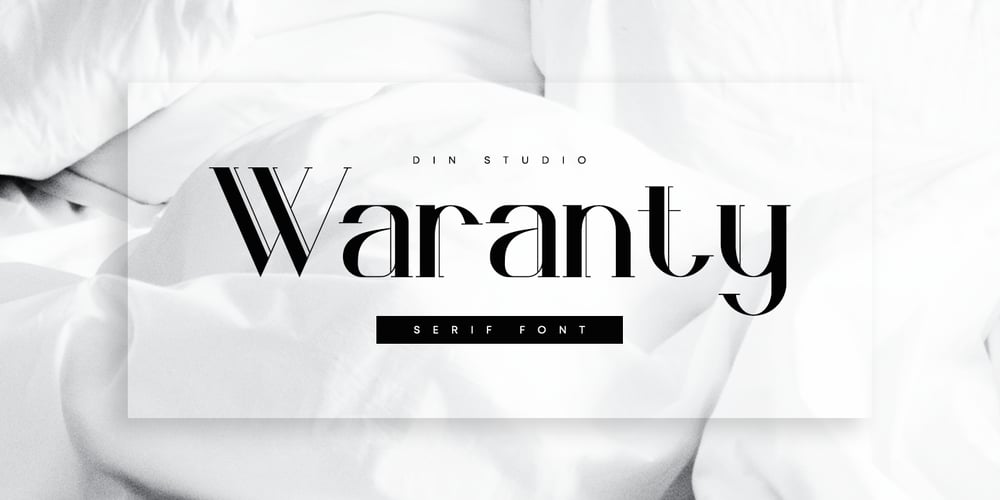
Waranty Font Family was designed by Donis Miftahudin and published by Din Studio. Waranty contains 1 styles and family package options. Waranty is a elegant serif font. Made for any professional project branding. It is the best for logos, branding and quotes. Every letter has a unique and beautiful touch.Features: PUA Encoded Multilingual Support Numerals and Punctuation Thank you for downloading premium fonts from Din Studio